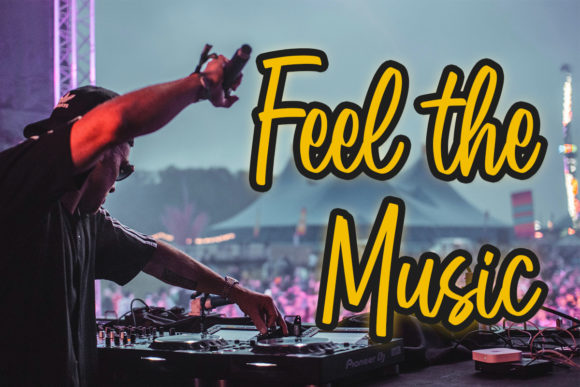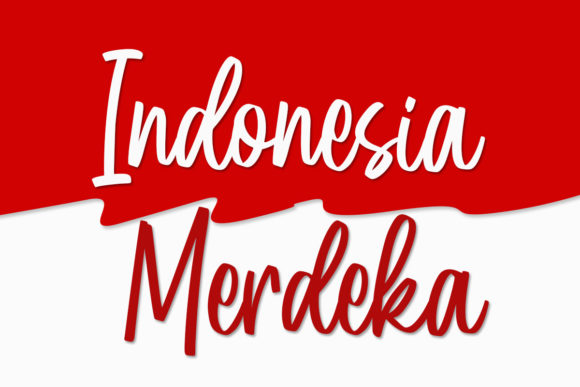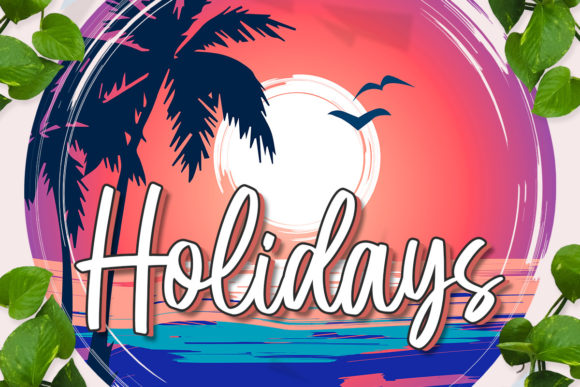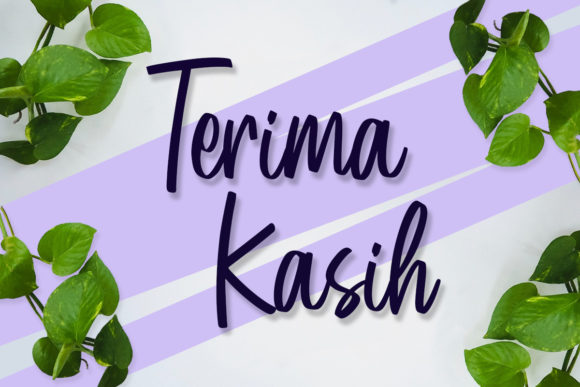
Introducing Anjast Martha Font: Elevate Your Designs with Modern Calligraphy
In the world of design, typography plays a crucial role in conveying messages, evoking emotions, and creating a lasting impression. For designers and crafters seeking to add a touch of elegance and simplicity to their projects, Anjast Martha Font is an excellent choice. This modern calligraphy font is designed to inspire creativity and take your designs to the next level.
The Beauty of Anjast Martha Font
Anjast Martha Font is a stunning example of modern calligraphy, characterized by its fluid lines, harmonious curves, and balanced proportions. This beautiful font is perfect for a wide range of design applications, from branding and advertising to packaging, invitations, and digital media. Its unique charm and versatility make it an ideal choice for designers looking to add a personal touch to their work.
Key Features of Anjast Martha Font
- Modern Calligraphy Style: Anjast Martha Font boasts a fresh and contemporary calligraphy style that is both stylish and sophisticated.
- Simple yet Elegant: The font’s simplicity is its greatest strength, making it easy to read and versatile for various design applications.
- Limitless Options: With Anjast Martha Font, your creative possibilities are endless. Use it for headings, titles, quotes, or any other design element that requires a touch of elegance.
- High-Quality Design: The font is meticulously crafted with attention to detail, ensuring a high-quality design that will elevate your projects.
Anjast Martha Font is an excellent choice for designers and crafters who want to add a professional touch to their work. Whether you’re creating:
- Branding Materials: Use Anjast Martha Font to create stunning logos, business cards, and letterheads that reflect your brand’s personality.
- Digital Media: Add a touch of elegance to your social media graphics, blog posts, and website headers with this beautiful font.
- Stationery and Invitations: Create gorgeous invitations, greeting cards, and stationery that will leave a lasting impression.
- Packaging Design: Use Anjast Martha Font to create eye-catching labels, product packaging, and point-of-sale displays.
Anjast Martha Font is a beautiful modern calligraphy font that offers a world of creative possibilities for designers and crafters. Its simplicity, elegance, and versatility make it an excellent choice for a wide range of design applications. With Anjast Martha Font, you can elevate your designs, add a touch of sophistication, and create a lasting impression. So why wait? Unlock your creative potential and explore the limitless options of Anjast Martha Font today!